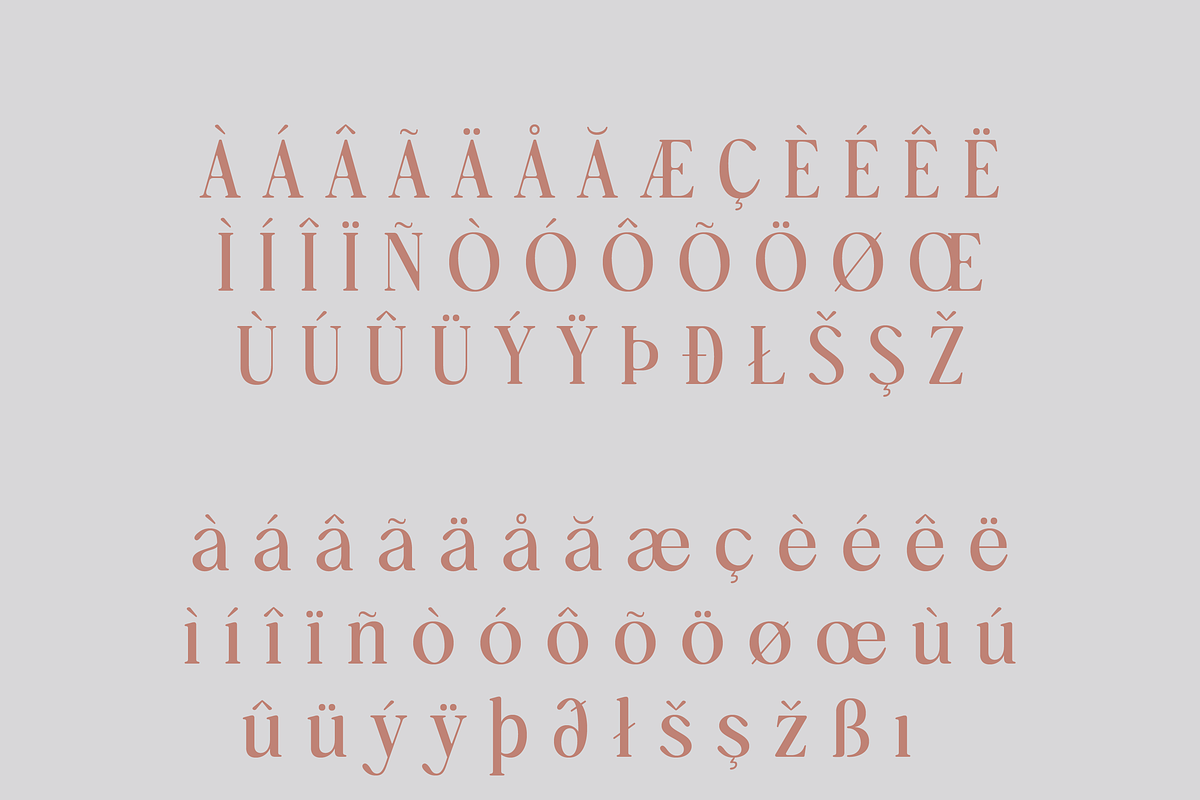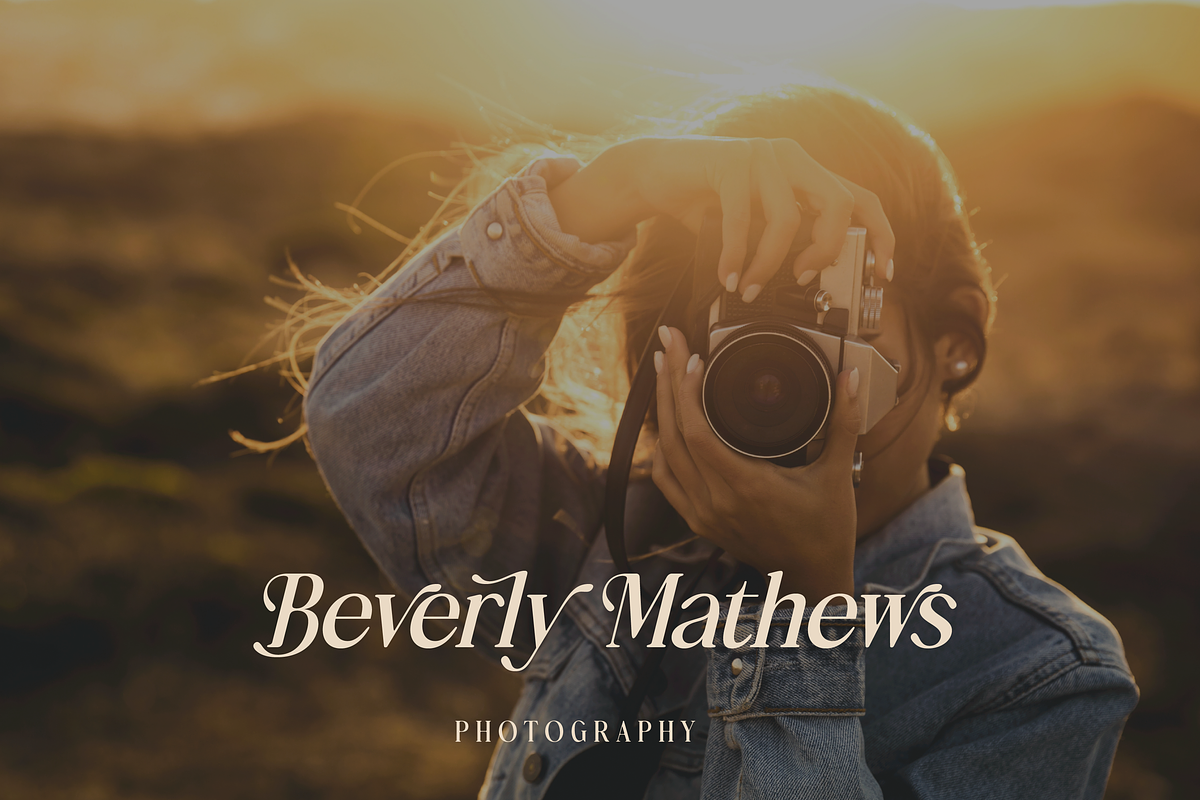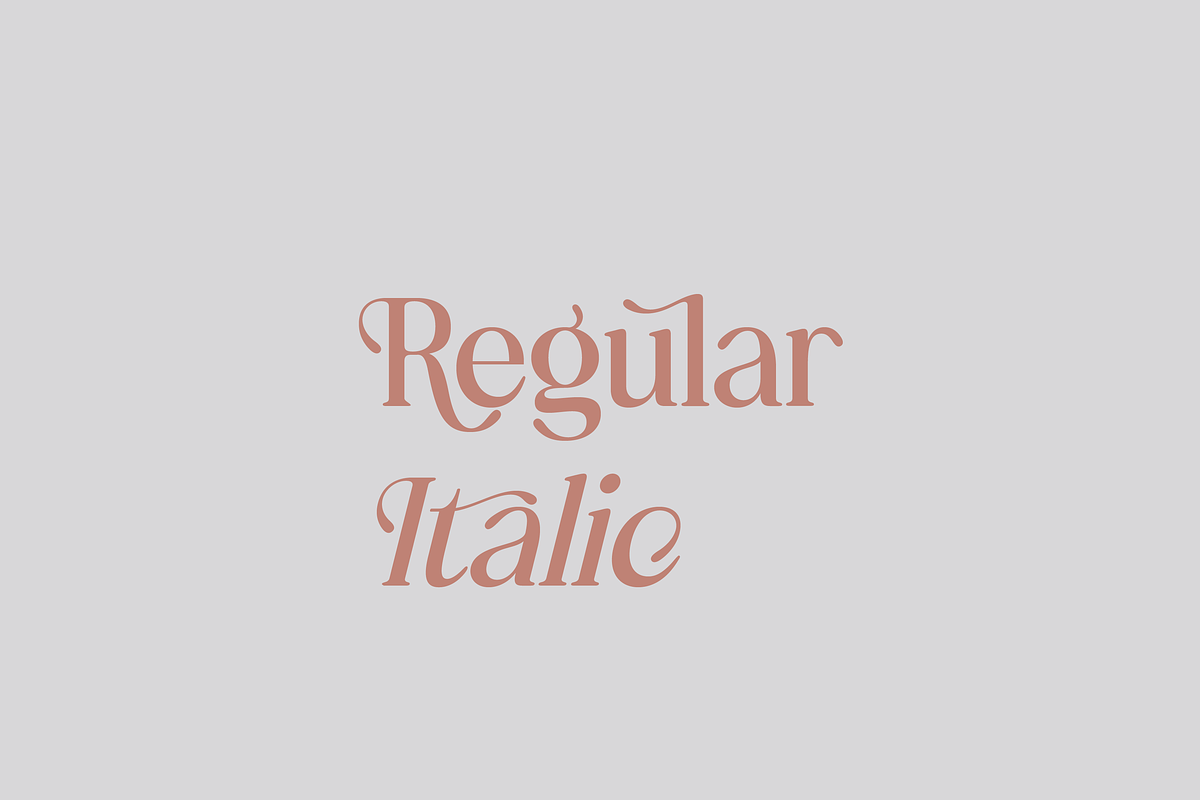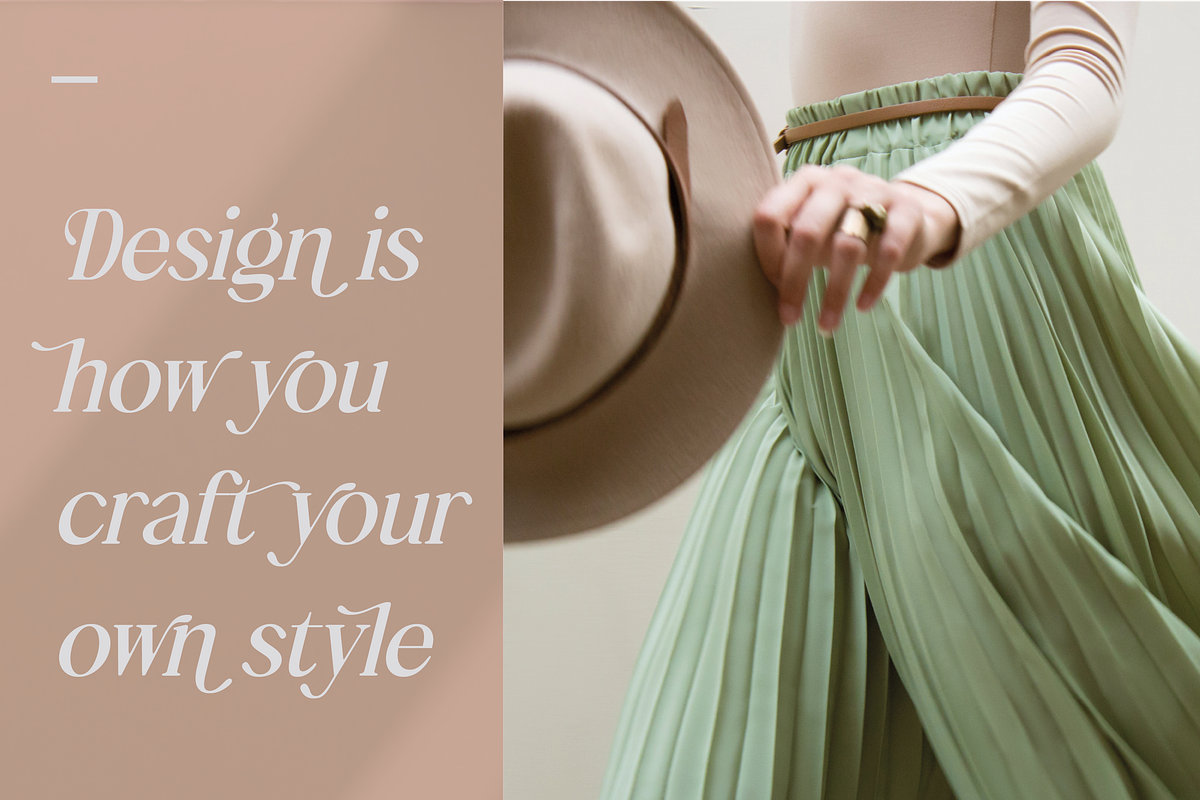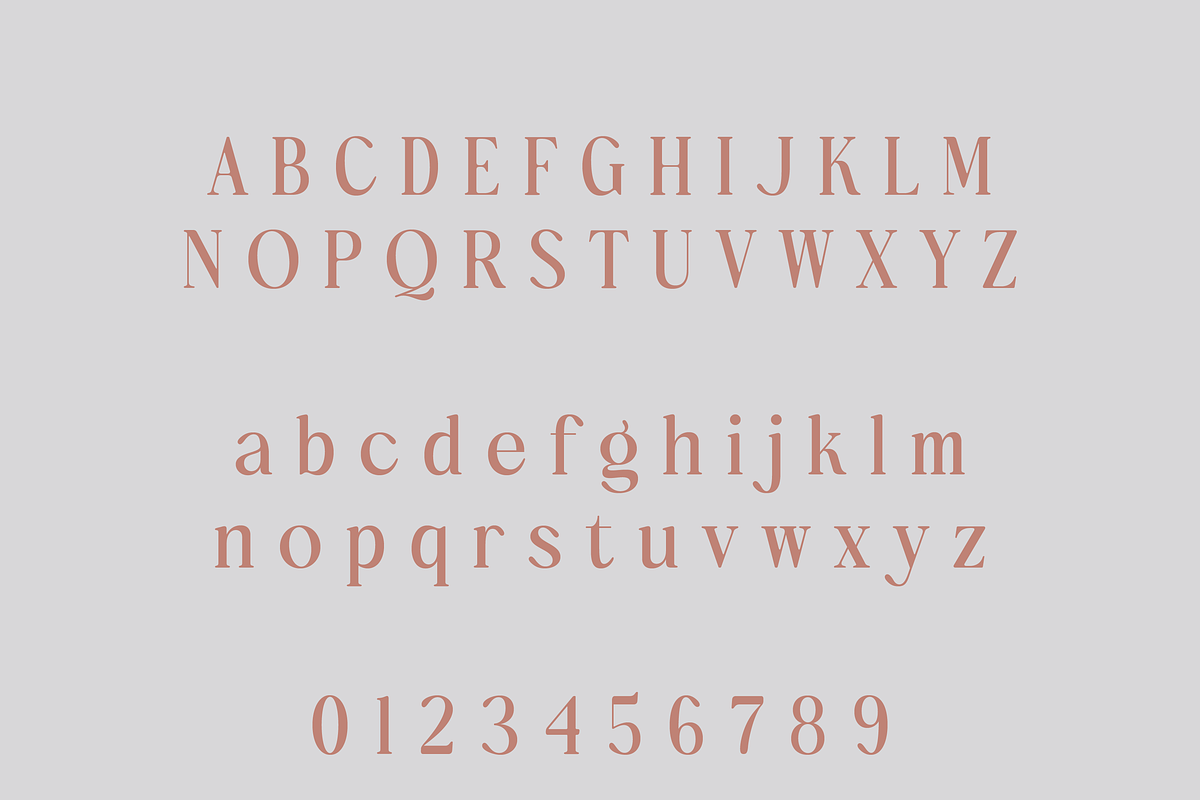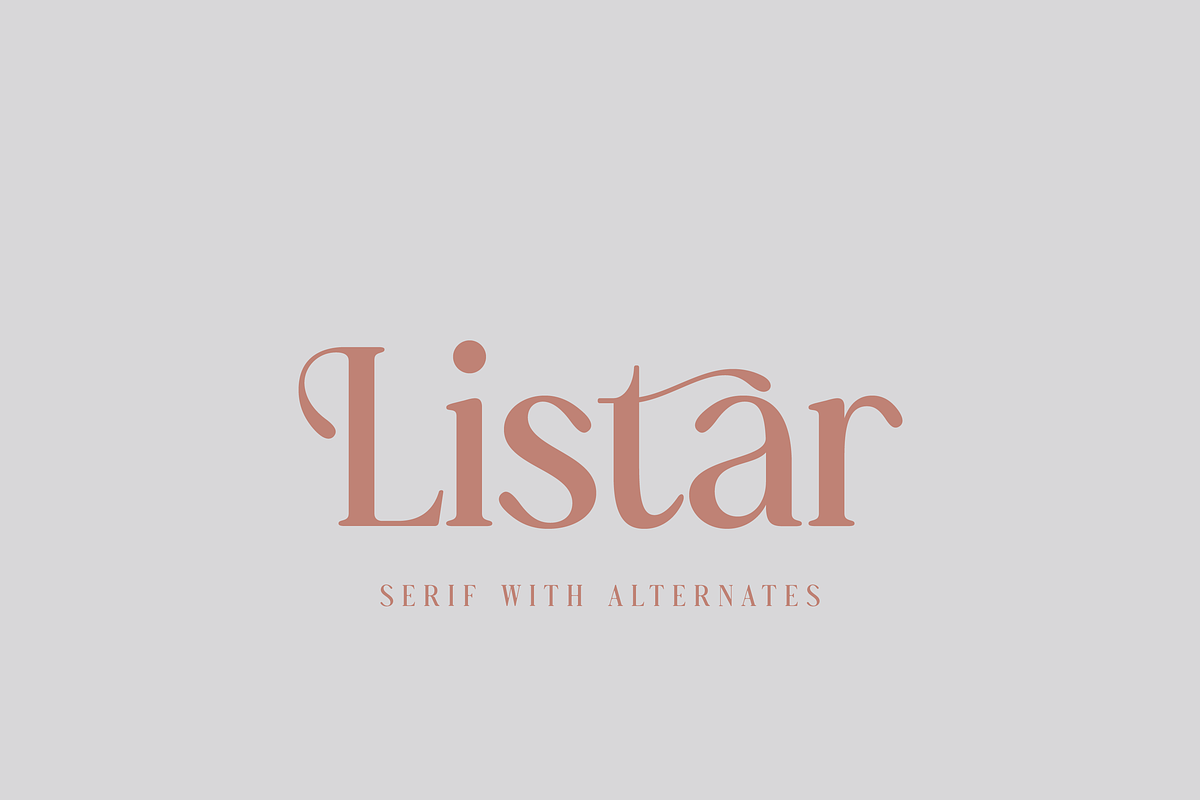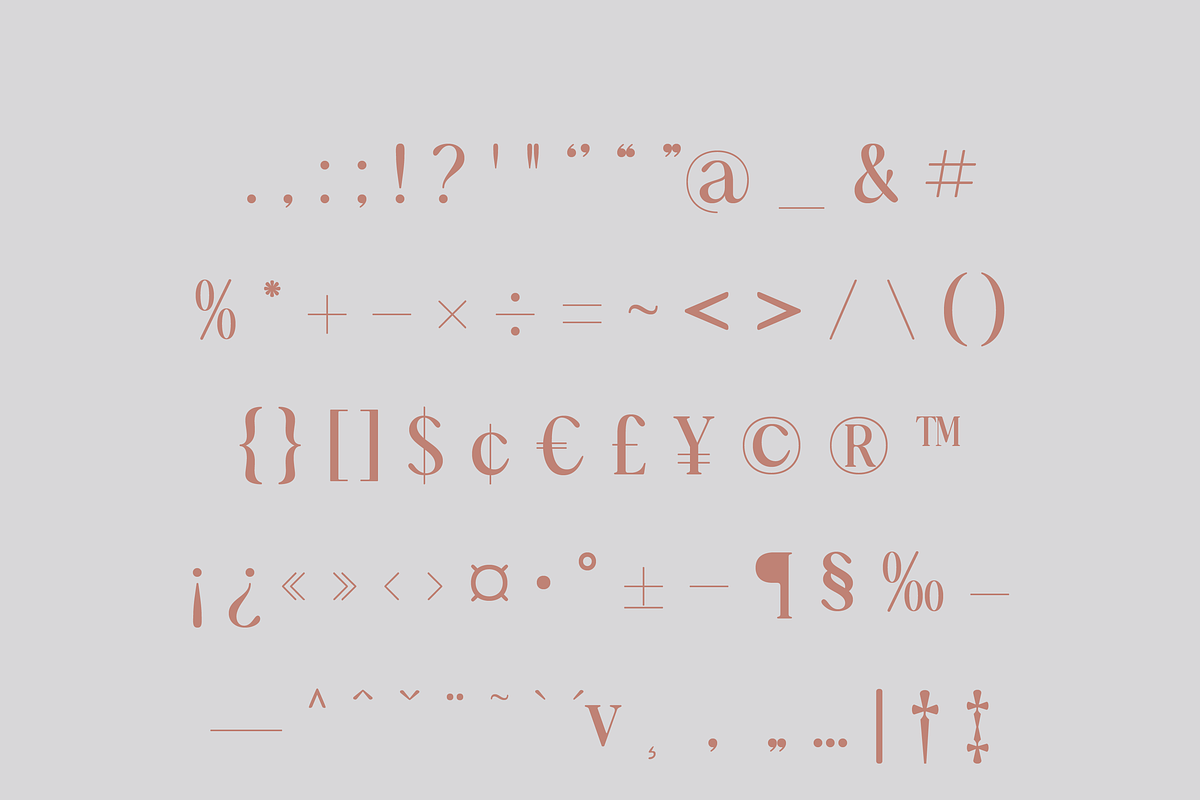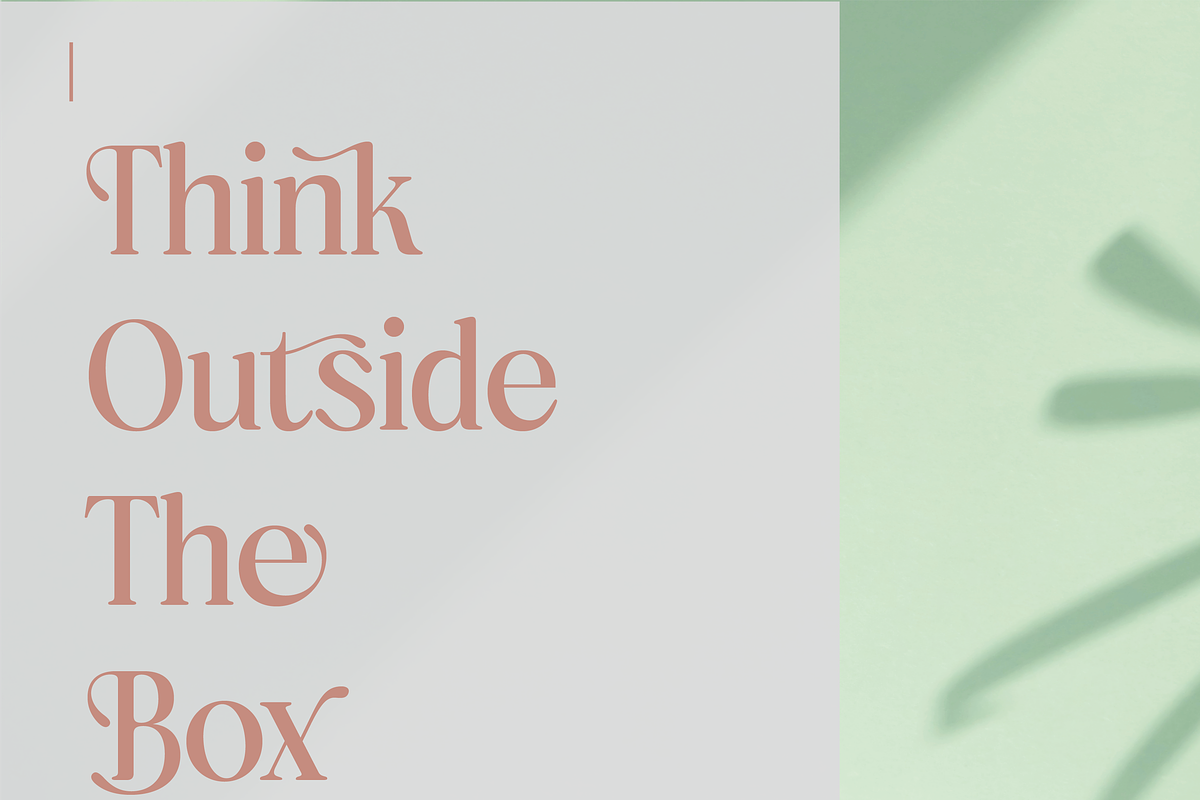
Listar – A Modern Serif
Listar – A Modern Serif with Timeless Elegance
Listar is a sophisticated serif typeface that merges classic refinement with a sleek, contemporary style. Designed to bring luxury and versatility to your projects, Listar is perfect for logos, branding, packaging, invitations, apparel, and more.
Bring timeless elegance to your work with Listar and create stunning, high-end visuals